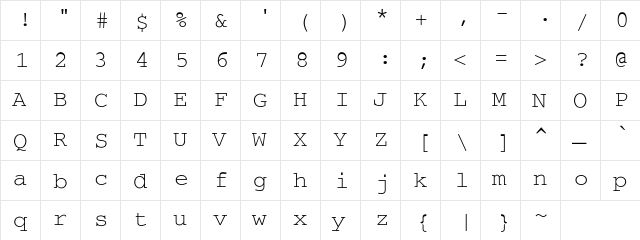
Courier-a Regular
Design Context for Courier-a Typeface
Courier-a brings the precise, column-aligned rhythm of monospaced typography to designs that value technical clarity and systematic order.
Well-suited to data-driven dashboards, coding tutorials, and any design that wants to reference the world of programming.